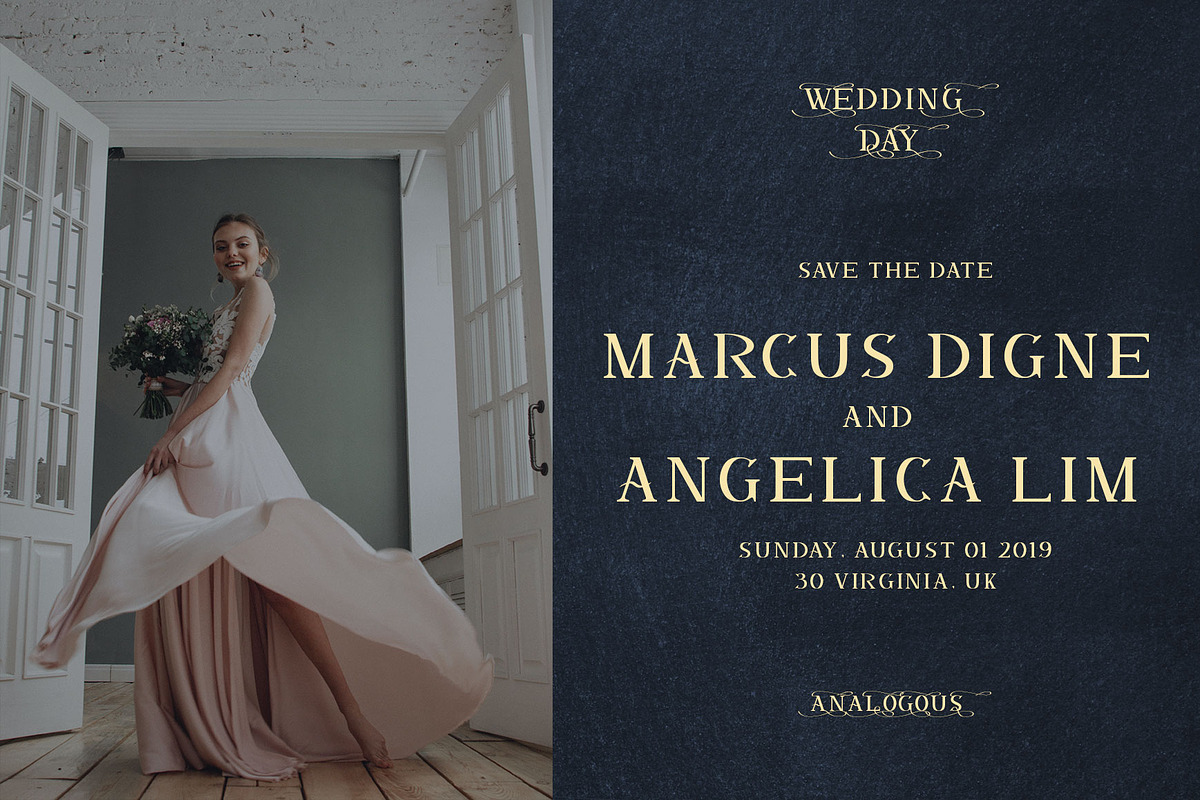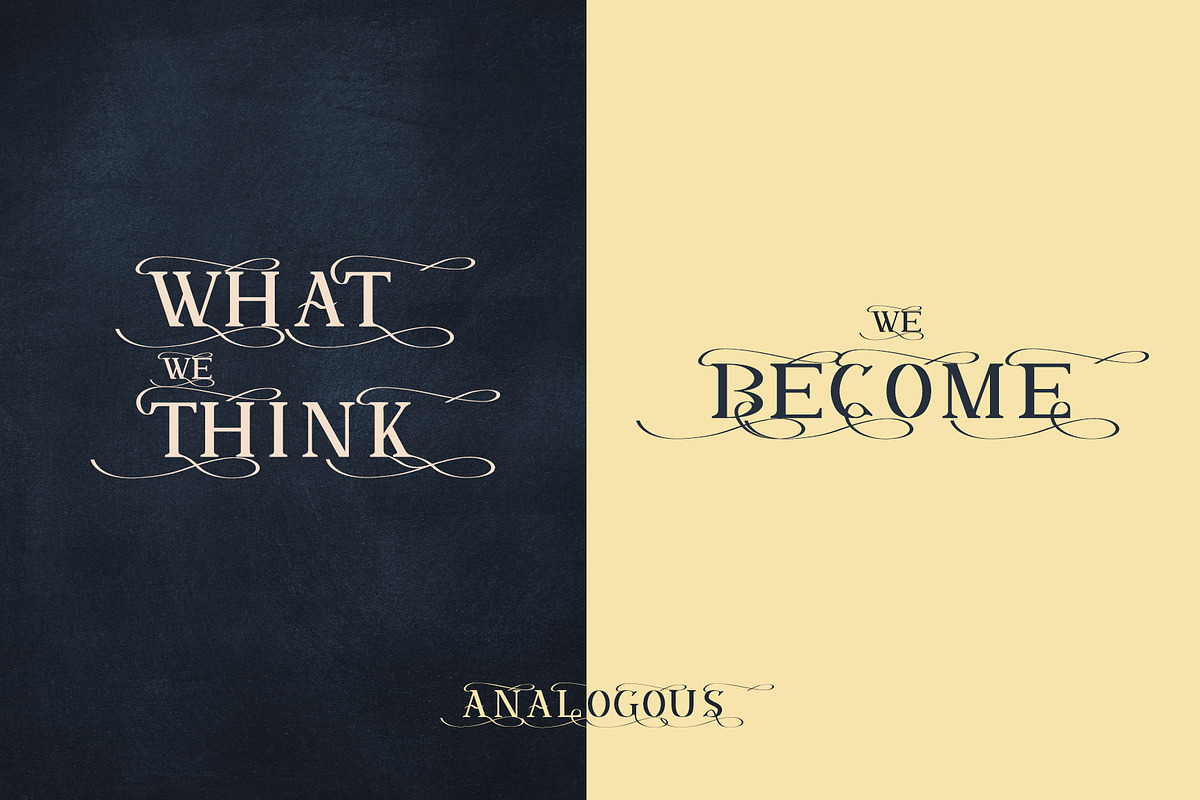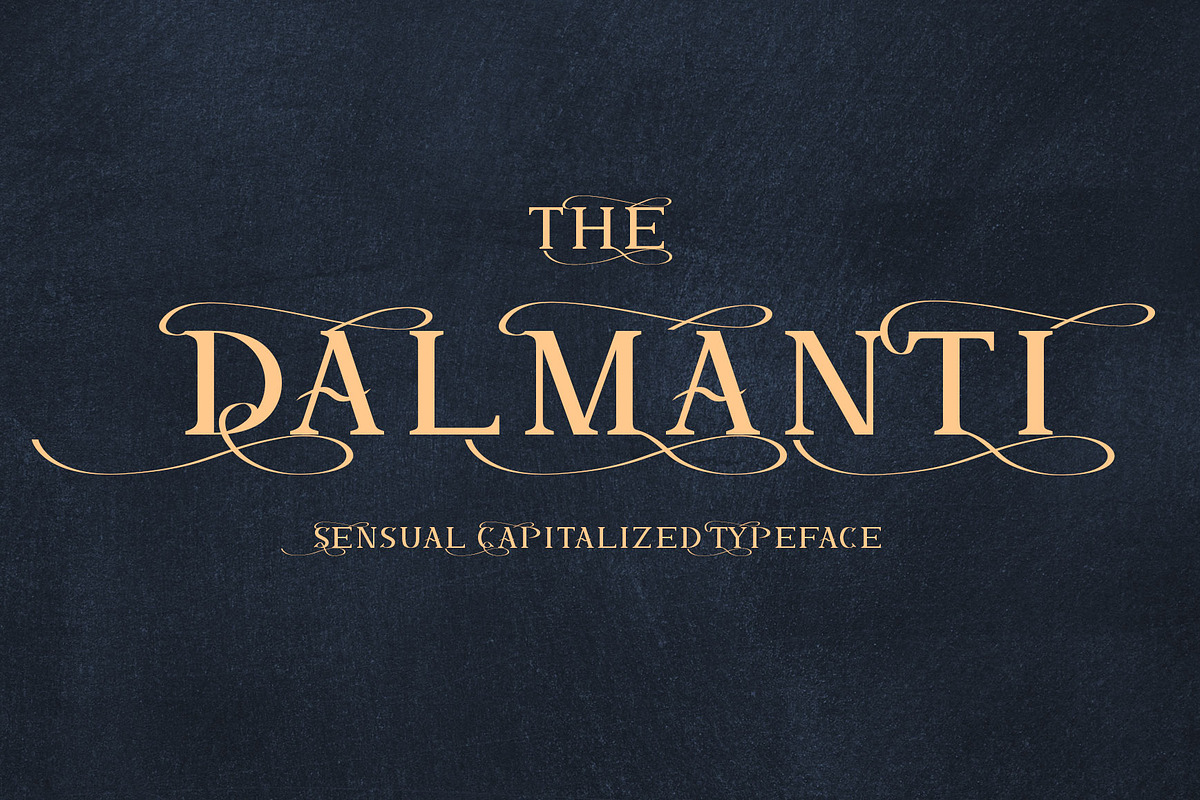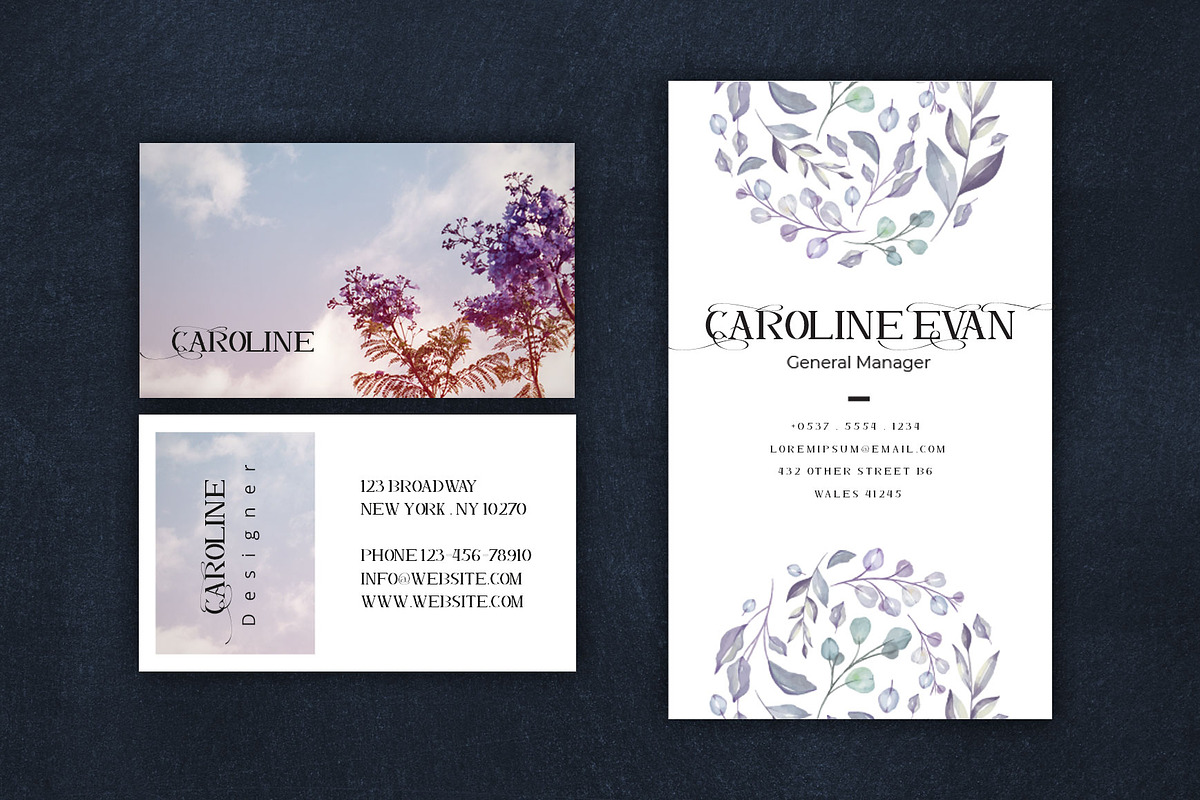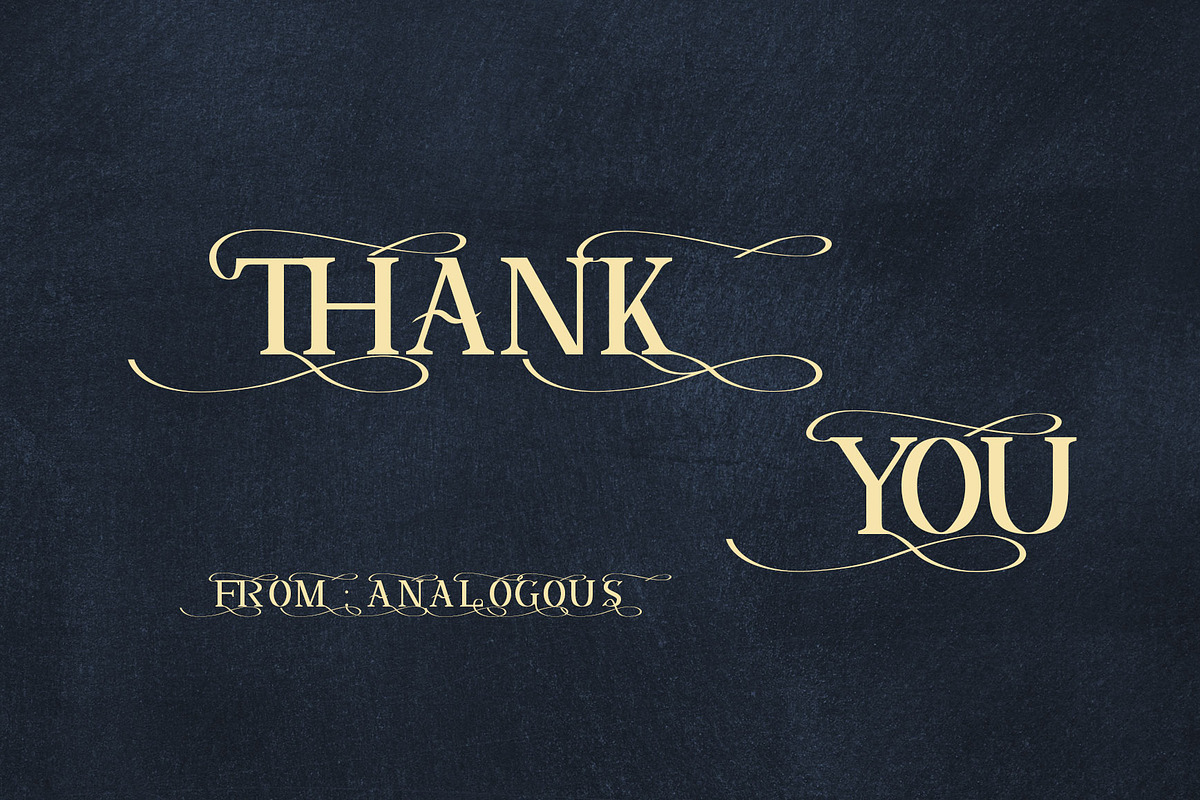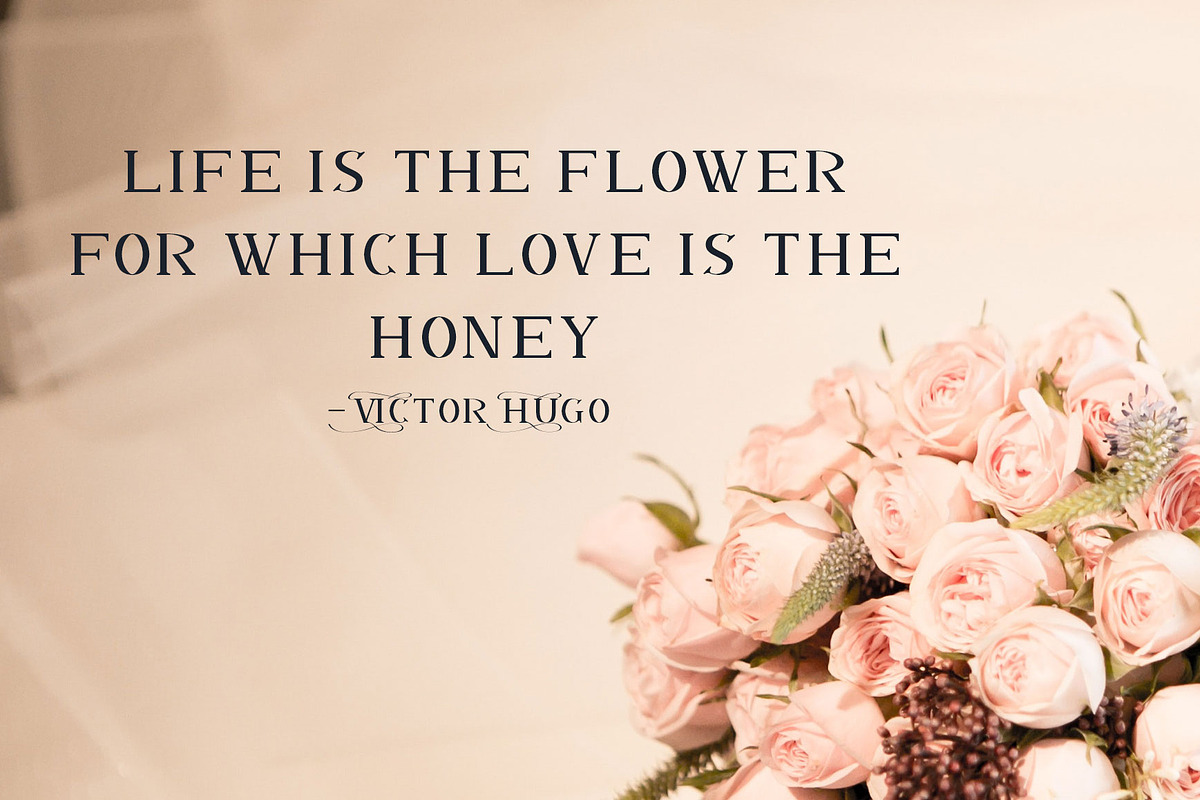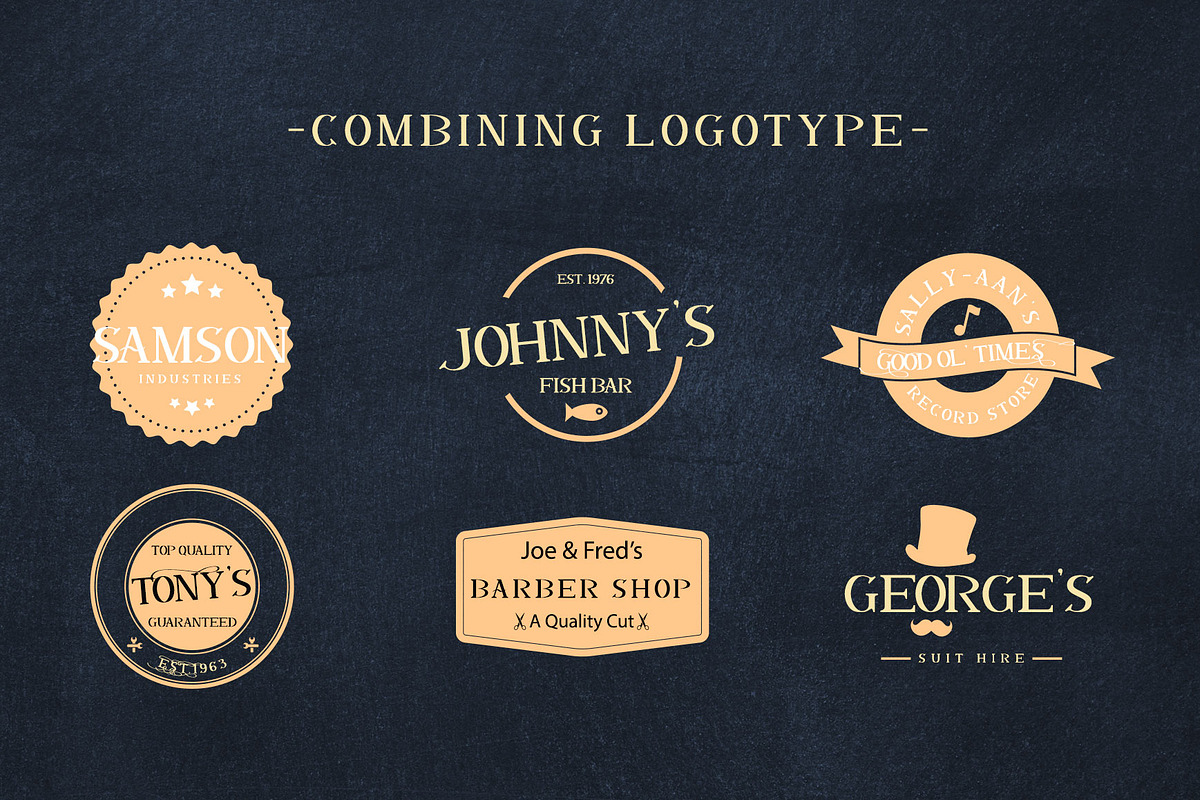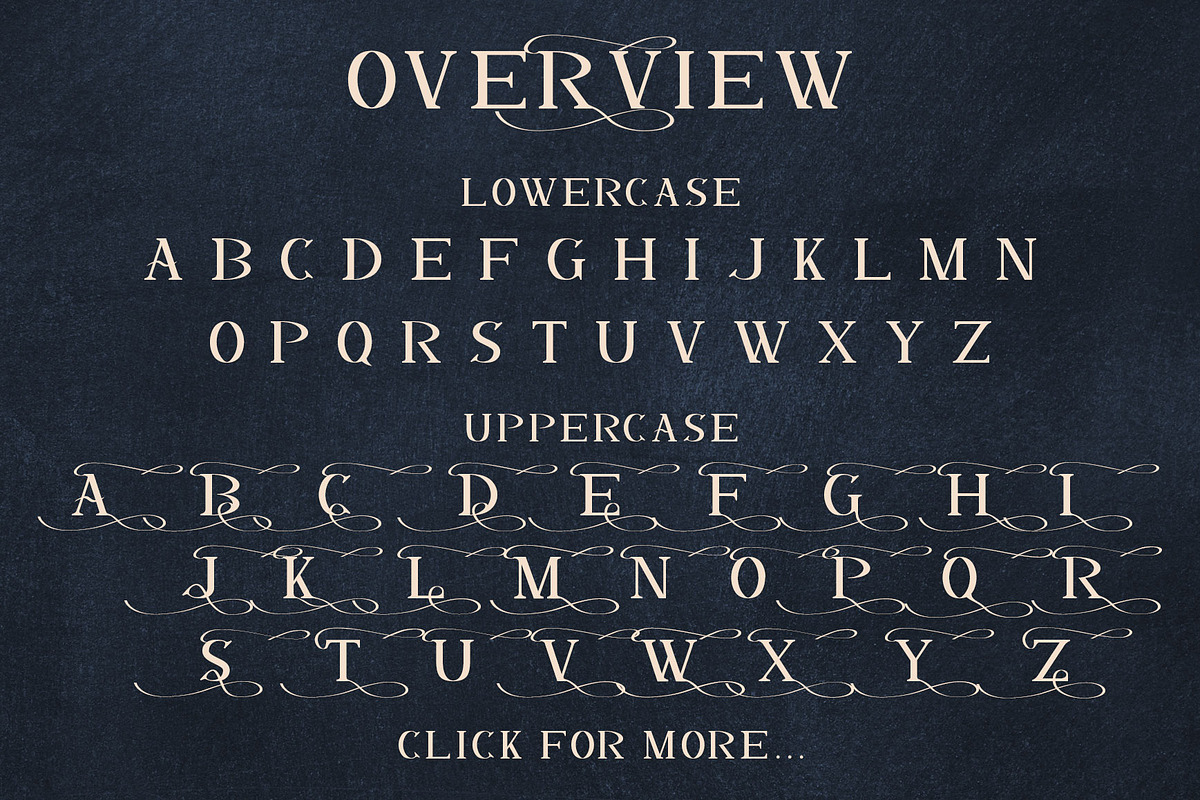
Dalmanti - Capitalized Typeface
Introducing Dalmanti Font is an sensual capitalized typeface that offers a wide range of possibilities, especially for a lot of alternative. Dalmanti Font offers an attractive tool for producing elegant decorative lettering, for example, for book covers or for posters and packaging.
You want to make a greeting card or a package design, or even a brand identity, craft design, any DIY project, book title, wedding font, pop vintage design, retro design or any purpose to make your art / design project look Elegant and Classy? Feel free to play with this font!
Upper Case & Lowercase